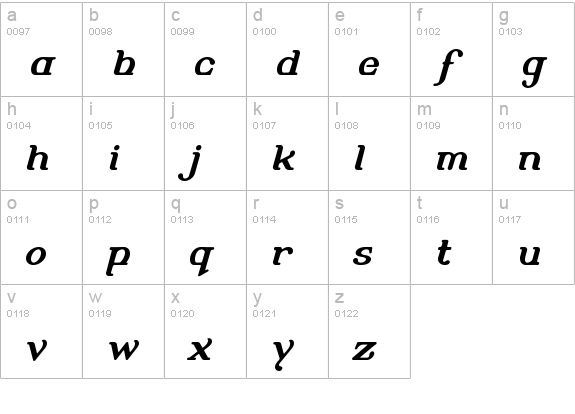
Introducing AlembicBeta-BoldItalicOne font, a bold and dynamic typeface designed to make a statement. With its strong presence and stylish italics, this font is perfect for grabbing attention and adding a touch of sophistication to your design projects. The unique blend of boldness and elegance in AlembicBeta-BoldItalicOne font makes it versatile for a wide range of creative applications, from branding and advertising to editorial design and more. What sets AlembicBeta-BoldItalicOne font apart is that it is not only visually striking but also free to download. Yes, you read that right - this exceptional font is freely available for download at FontsMarket.com. Now you can elevate your designs with a high-quality font without breaking the bank. Whether you're a seasoned designer looking for a fresh new typeface or a beginner exploring the world of typography, AlembicBeta-BoldItalicOne font is a must-have addition to your font library. Download it today and let your creativity soar with this stunning and free font!